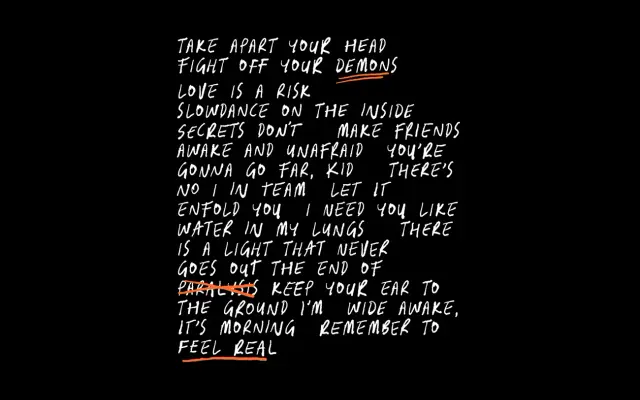
Infamous
A rough, slightly italicised handwriting font with a scratchy, inked texture and over 100 custom ligatures for natural flow.
Drawn to mimic the look of real ink on paper, Infamous carries a deliberately imperfect, distressed character suited to poster work, packaging and branding that needs a grunge or handcrafted feel. The single weight includes uppercase and lowercase, multilingual support and over 360 glyphs in total, among them hand-drawn scribble characters accessible via keyboard shortcuts. Those sketched ornaments sit naturally alongside the letterforms, adding extra personality without feeling bolted on.
Infamous is a casual, slightly italicised handwriting font with a rough, textured appearance and scribble ornaments, placing it firmly in the script/handwriting subcategory.